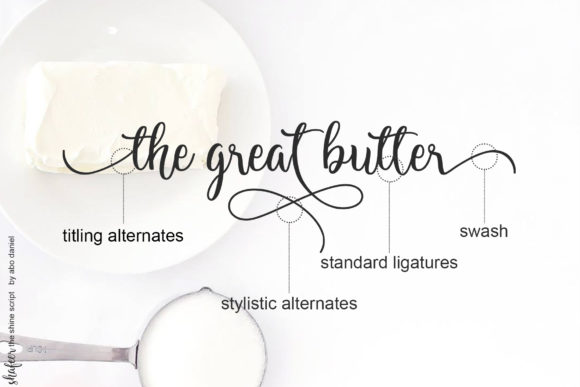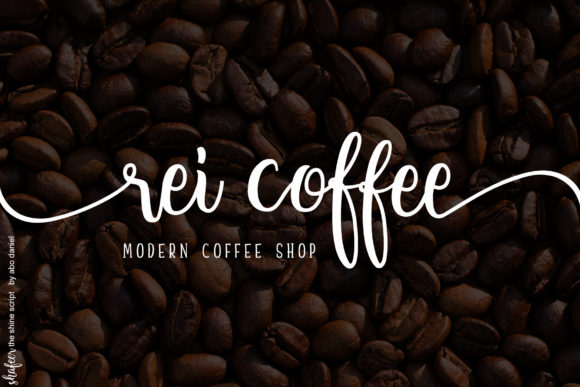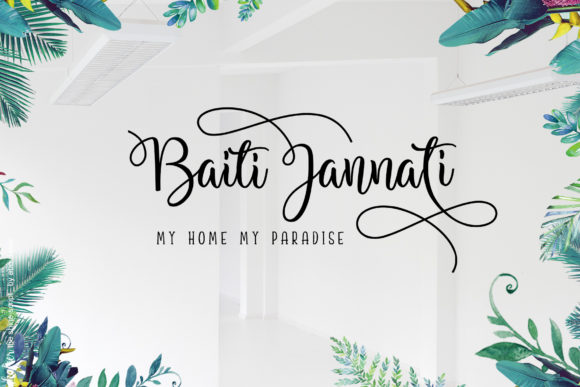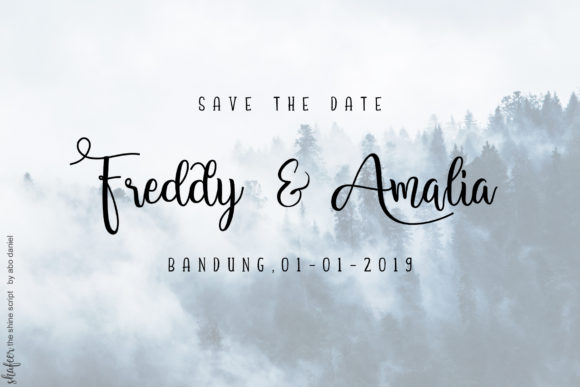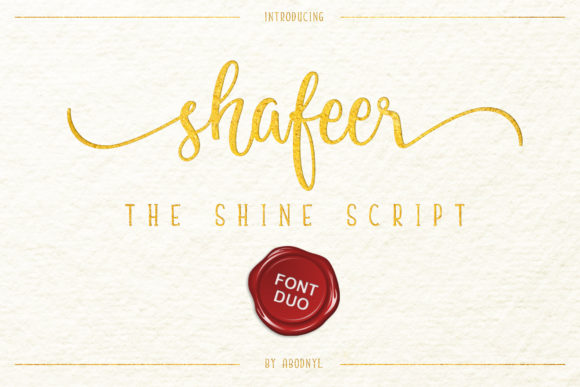
Shafeer Font Duo
Introducing Shafeer Duo! The Shafeer is an amazing font duo. It comes with an elegant and striking style which is perfect to make any design stand out! This font is perfect for branding, wedding invites, magazines, mugs, business cards, quotes, posters, and more, you can try first if you want to buy this font.